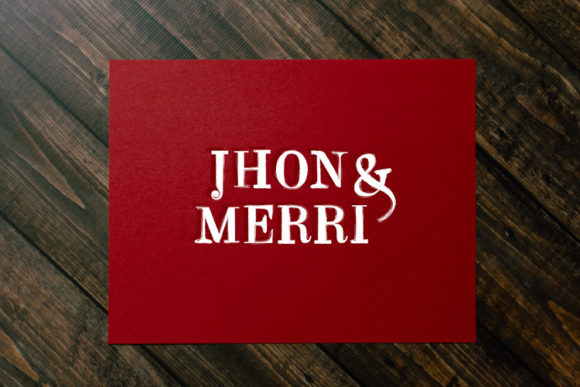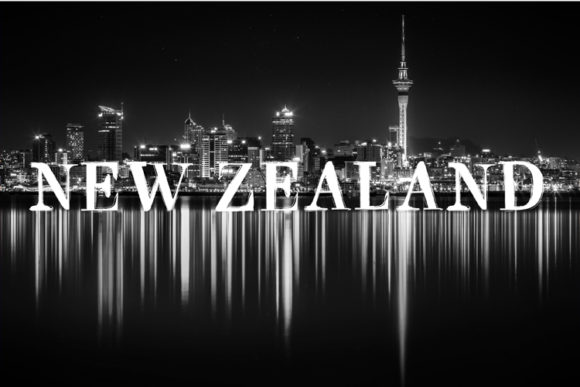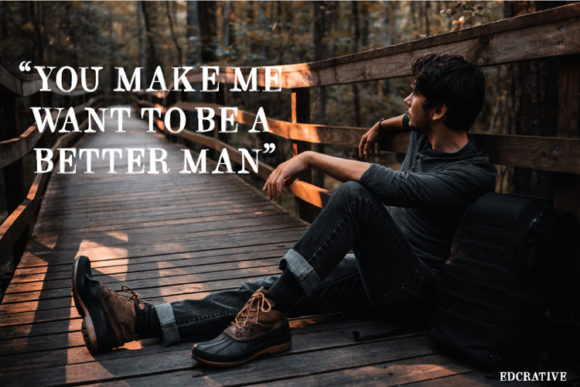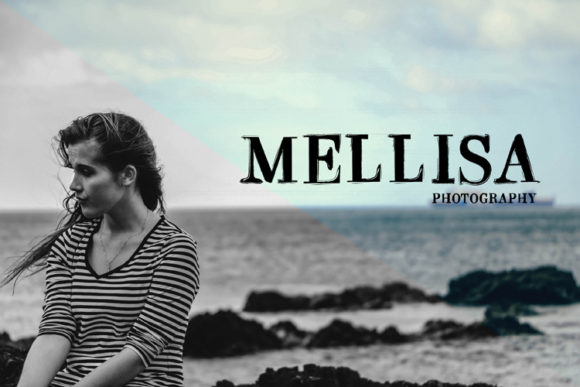
Introduction to Massey Font
Massey results out of a stunning pairing of a brush pen and pencil that makes it look incredibly endearing and authentic.
Use this gorgeous and unique display font to bring any DIY project to life .
Key Features of Massey Font
Why Choose Massey Font?